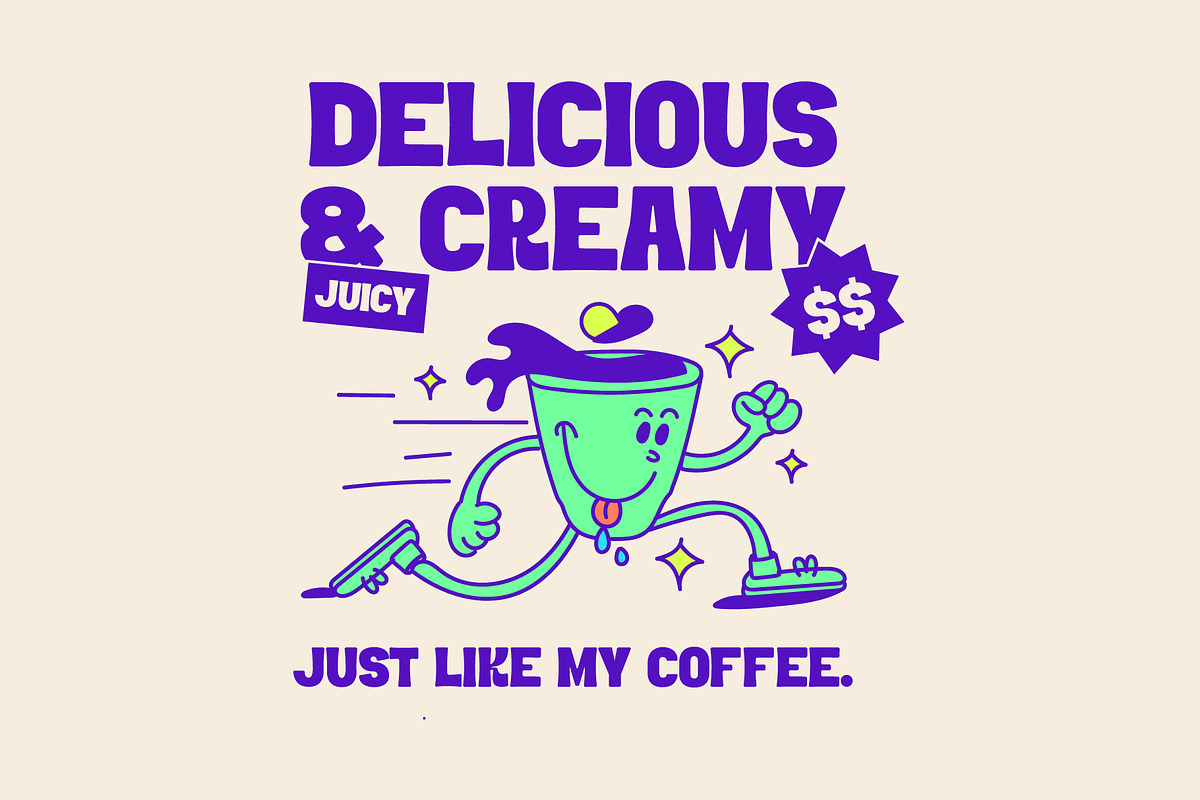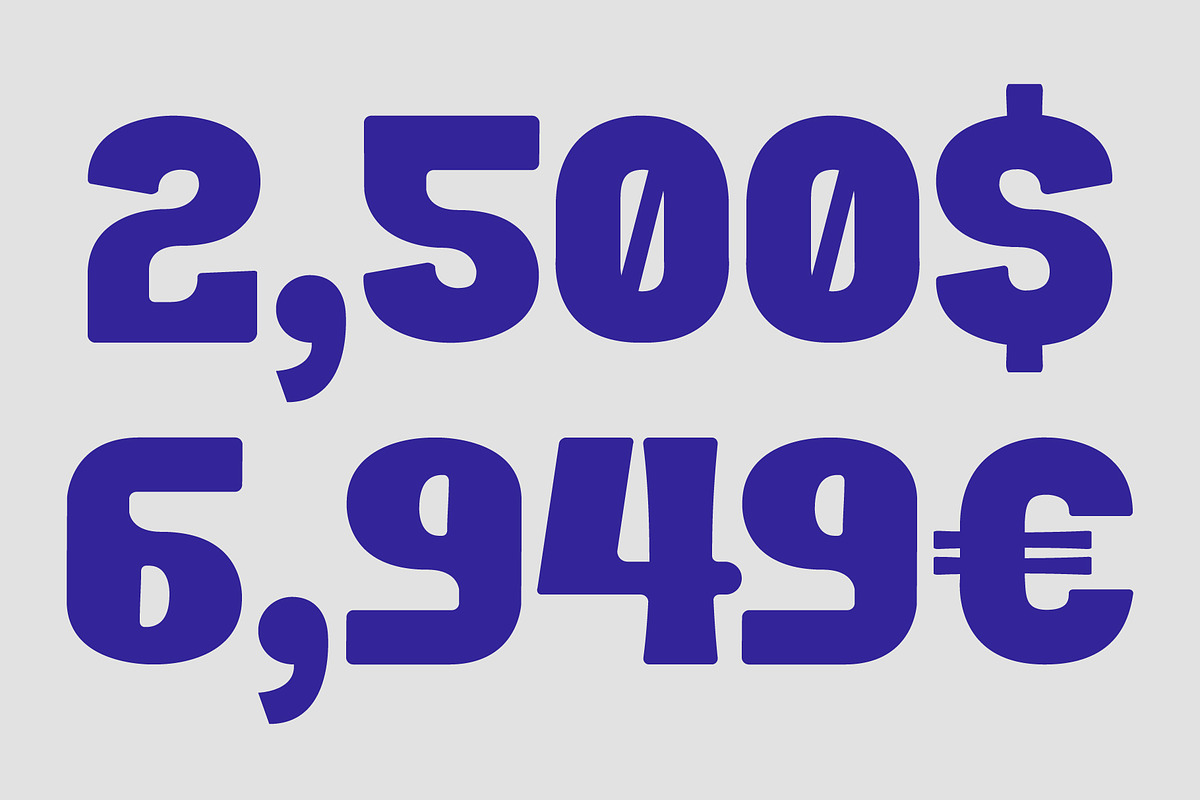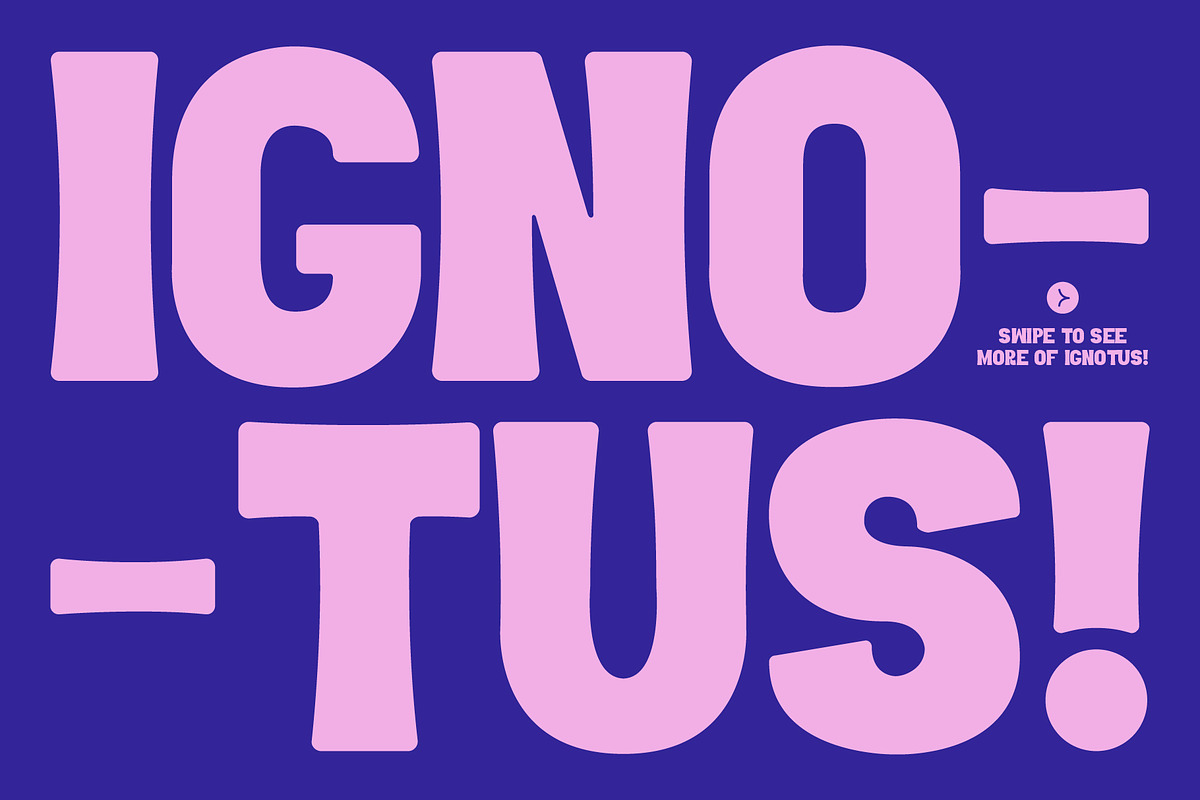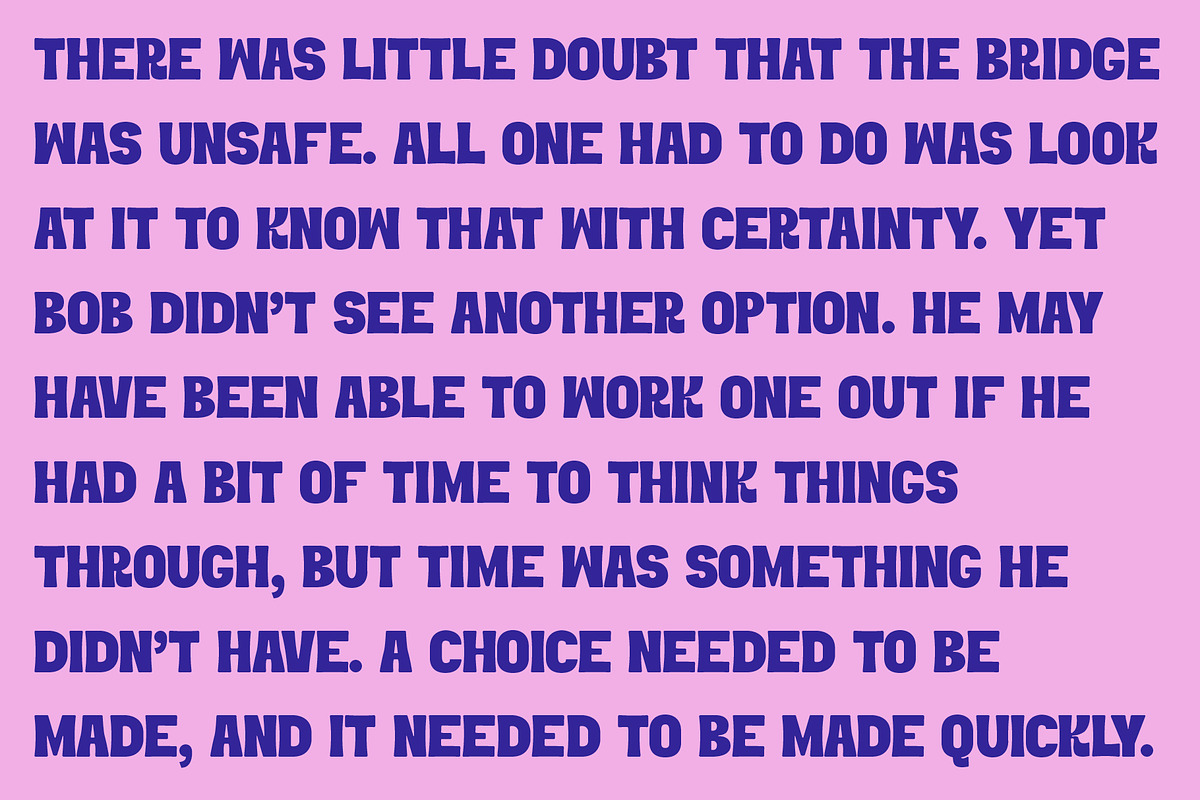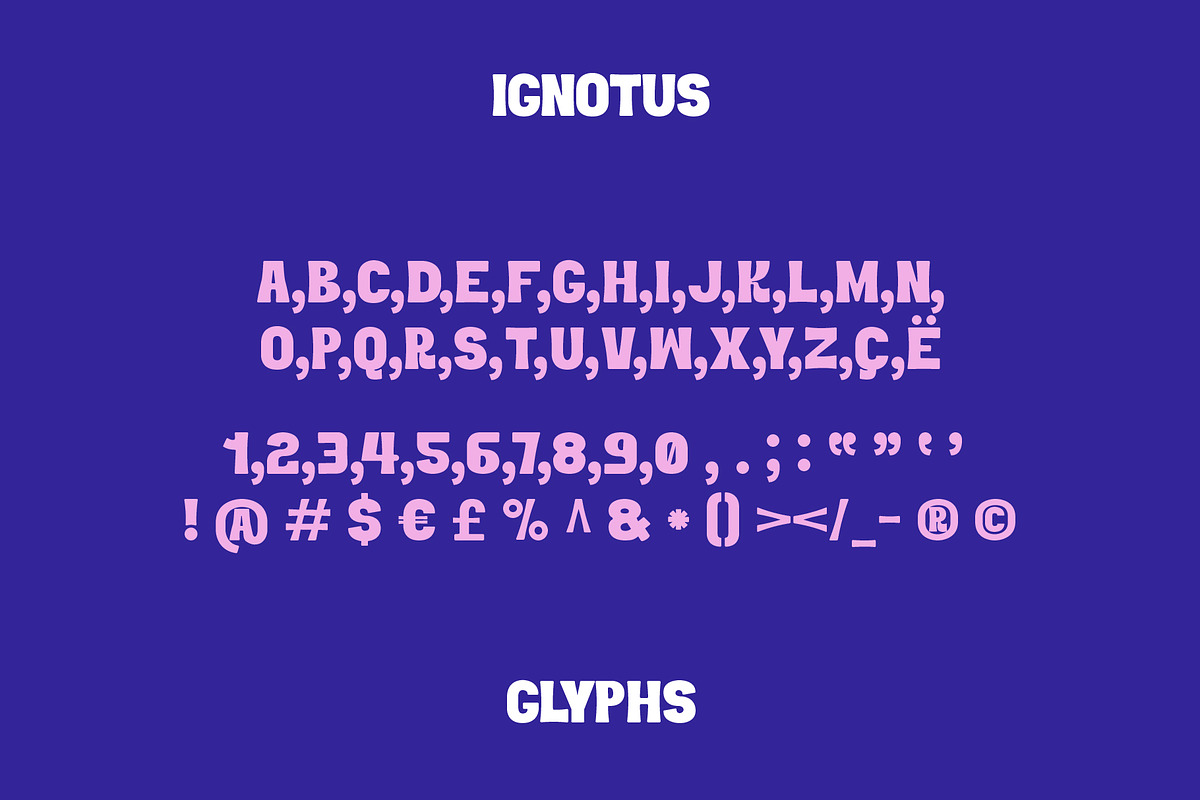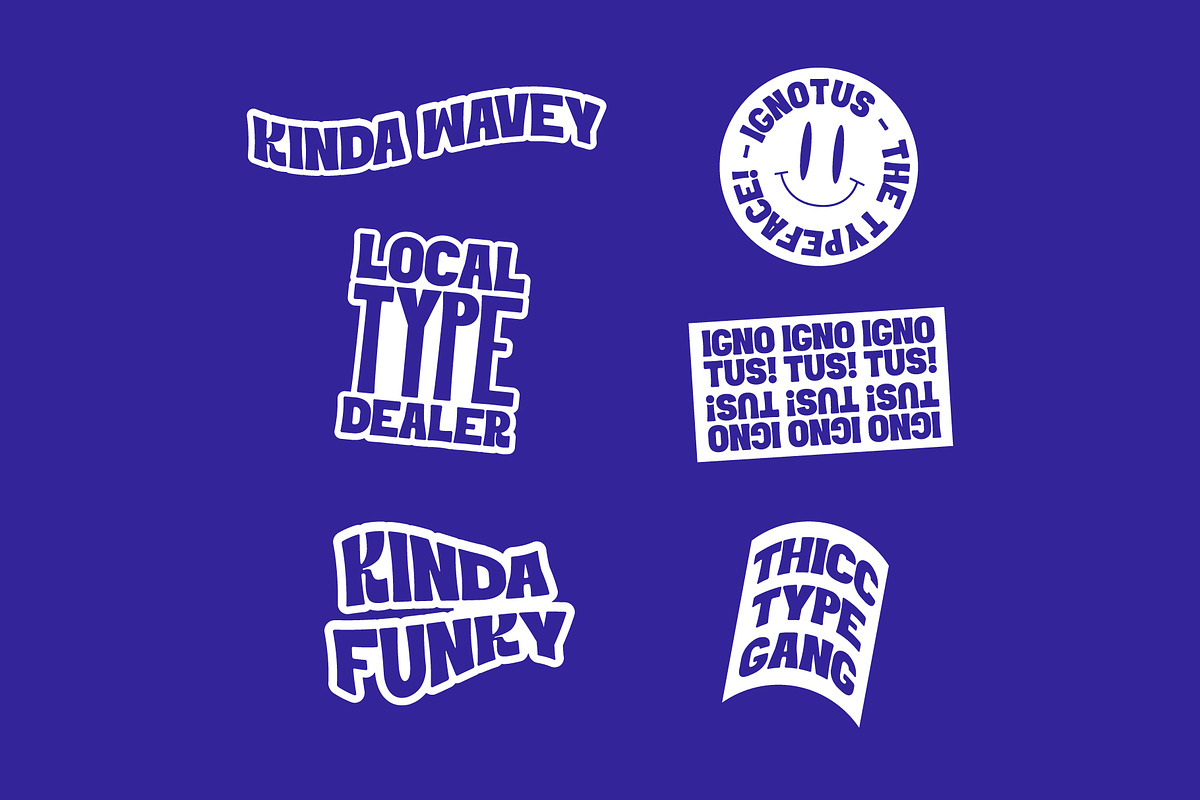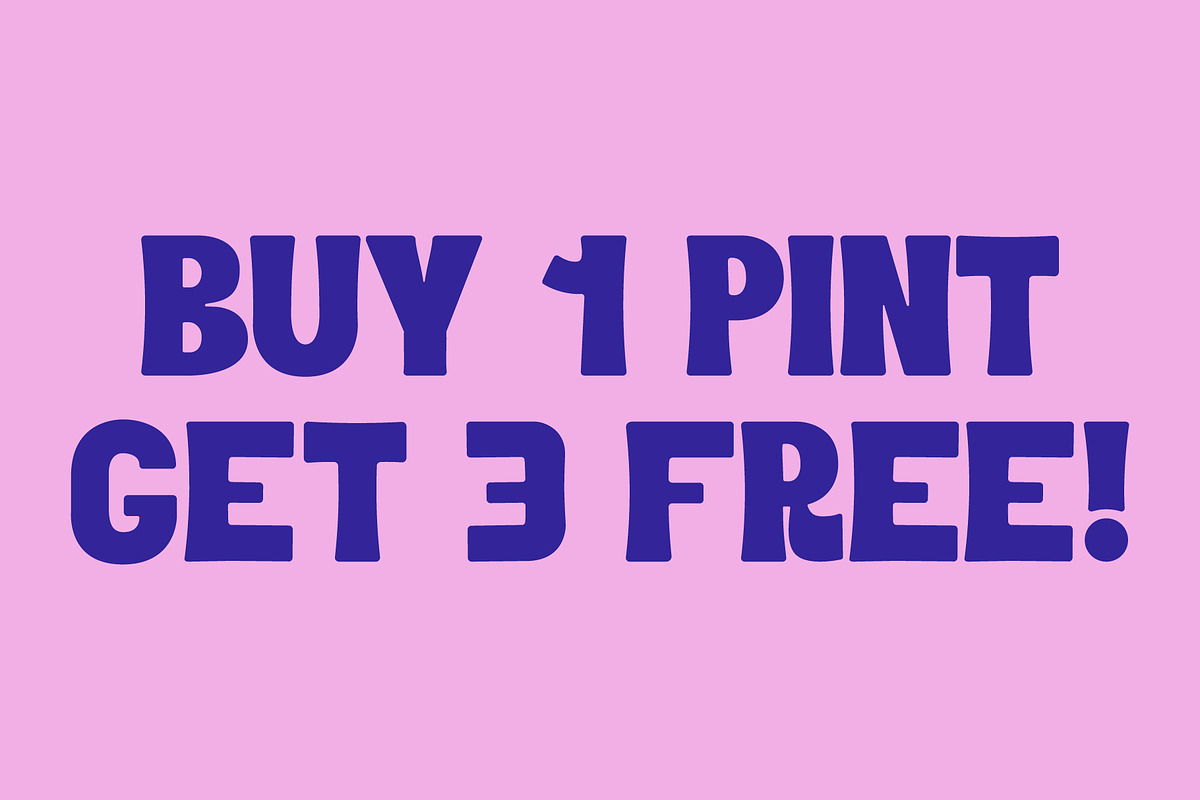
IGNOTUS - Fat Display Typeface
IGNOTUS is a fat / thick display typeface.
It has a playful yet bold character! A fun type to use & play around with.
Comes in 1 weight / 1 style & only available in upper case.